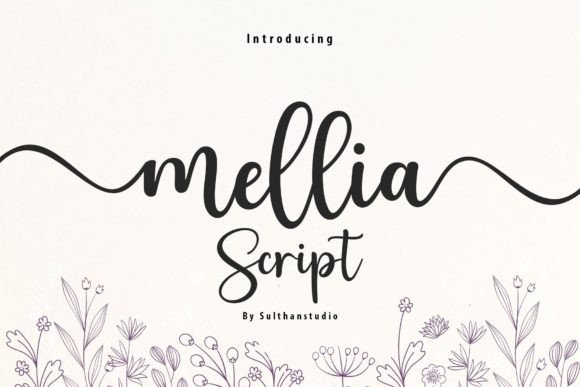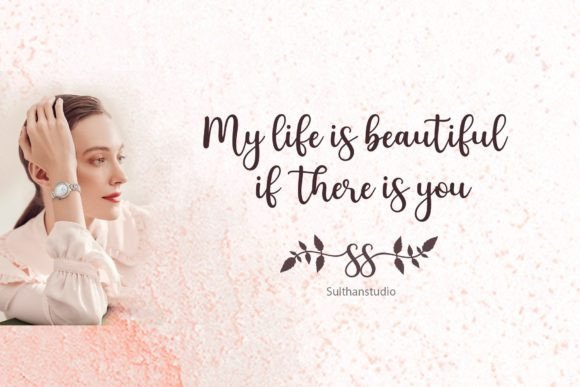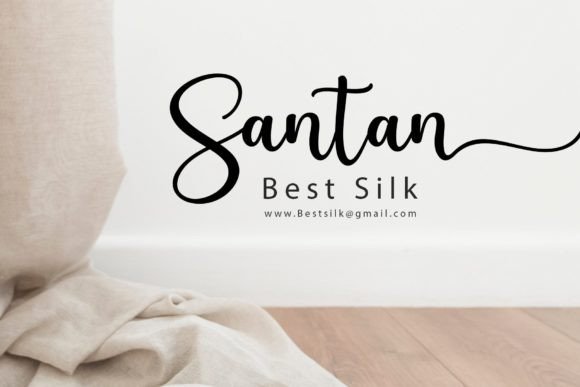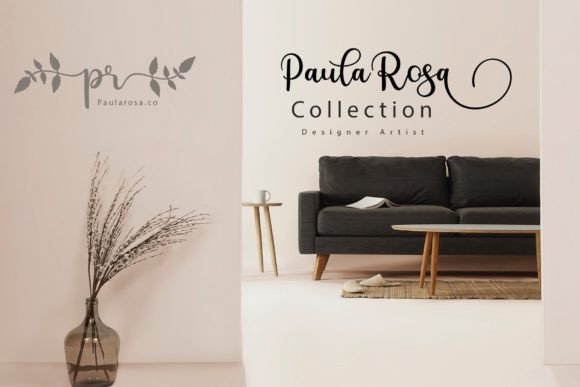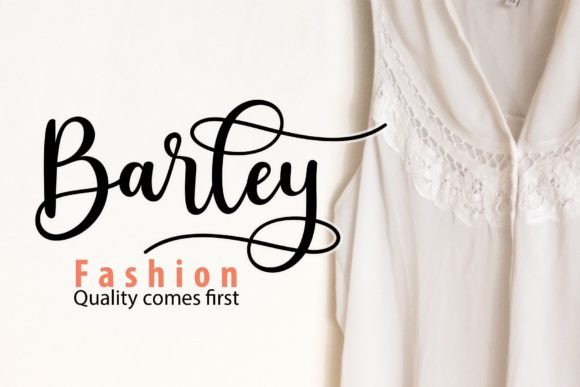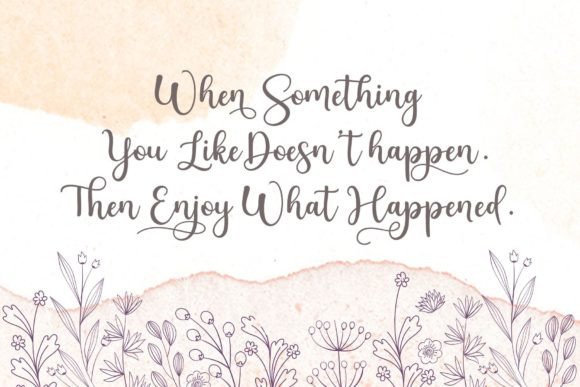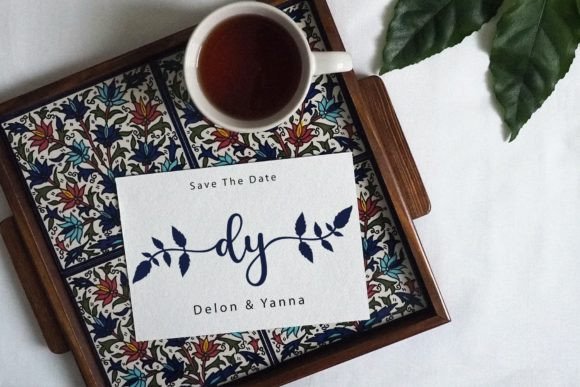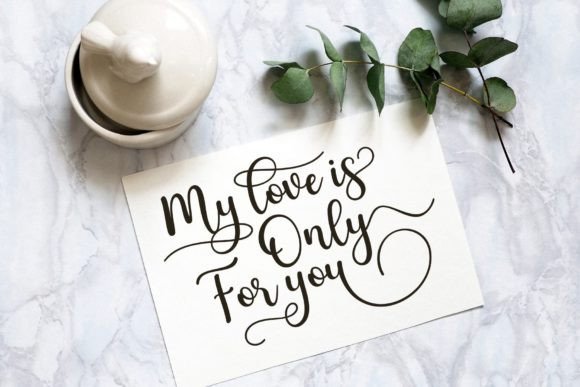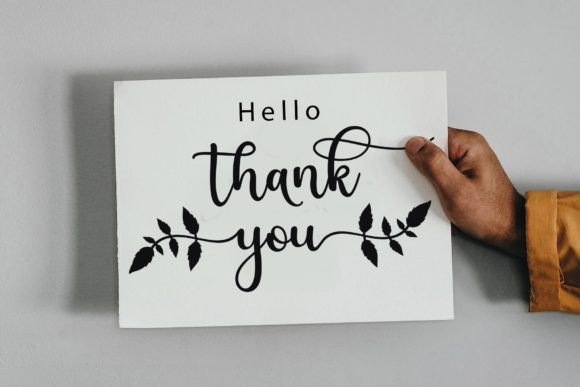
Mellia Script Font
About Mellia Script Font
“Mellia Script” is a sophisticated script font that combines elegance with a contemporary touch, inspired by the beauty of handwritten calligraphy. Its design strikes a balance between being neither too thin nor too bold, making it versatile and suitable for a wide range of projects. This font has a perfect form that enhances the overall aesthetic of your designs, adding a touch of refinement and class.
One of the standout features of “Mellia Script” is its attention to detail, mimicking the fluidity and grace of handwritten calligraphy. The font’s smooth lines and carefully crafted curves give it an organic and natural appearance, evoking a sense of timeless beauty. Whether used for wedding invitations, branding materials, advertisements, or any other creative project, “Mellia Script” adds an element of sophistication and elegance.
Furthermore, the font’s PUA encoding is a valuable feature for designers. PUA (Private Use Area) encoding allows easy access to all the glyphs, swashes, and special characters within the font. This accessibility enables designers to explore various typographic possibilities and create truly unique and personalized designs. Whether you’re customizing letterforms or experimenting with decorative elements, “Mellia Script” offers a wide array of options to elevate your creative endeavors.
Incorporating “Mellia Script” into your projects can transform ordinary text into a work of art. Its elegant and contemporary feel makes it a valuable asset for designers who appreciate the beauty of calligraphy and desire to infuse their work with a touch of sophistication. Embrace the charm of “Mellia Script” and enhance the beauty of your designs with its timeless elegance and perfect form.